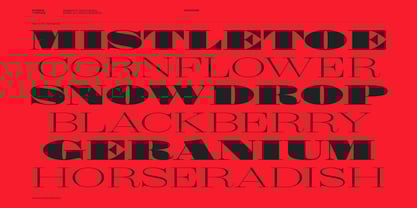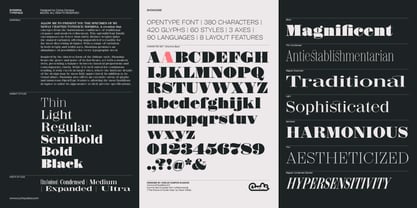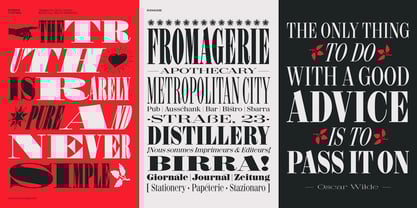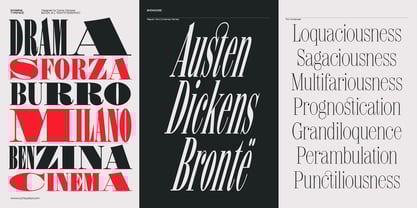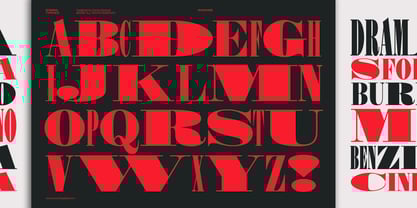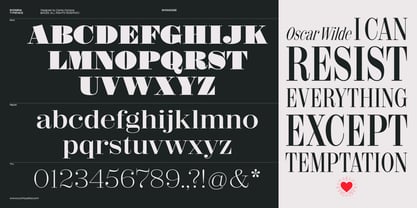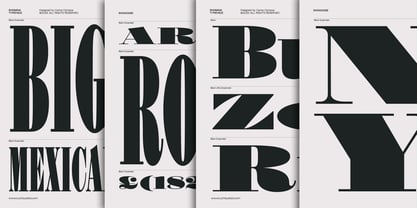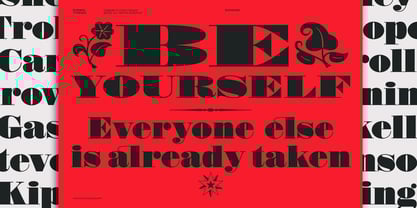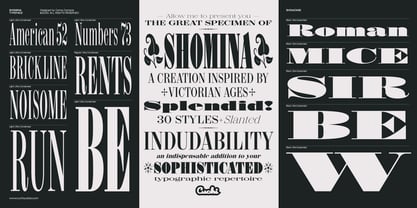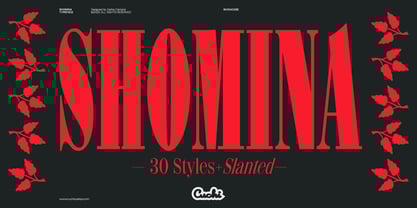
Shomina
by Cuchi, qué tipo
The Shomina Font Family was designed by Carlos Campos and published by Cuchi, qué tipo. Shomina contains 60 styles and family package options. More about this family
Allow me to present the specimen of my newly crafted typeface: Shomina. A creation that emerges from the harmonious confluence of traditional elegance and modern refinement. This splendid font family encompasses no fewer than thirty distinct weights (plus the slanted variants), offering unparalleled versatility for the most discerning designer. With a range of variation in both weight and width axes, Shomina promises an abundance of possibilities for every typographic need.
Inspired by the timeless form of the Didone style, Shomina bears the grace and poise of its forebears, yet with a modern twist, presenting a balance between classical proportions and contemporary clarity. While it is well-suited for continuous reading, it truly excels in larger sizes, where the intricate details of the design may be most fully appreciated. In addition to its visual allure, Shomina also offers an extensive array of glyphs and numerous OpenType features, allowing the most fastidious designer to tailor its appearance to their precise specifications.
Thus, whether for the most refined of printed works or the boldest of digital designs, Shomina is a typeface that imparts a rich, sophisticated character to any composition. I trust that your inspection of this specimen will confirm my high regard for this remarkable font, and that you shall find it an indispensable addition to your typographic repertoire.